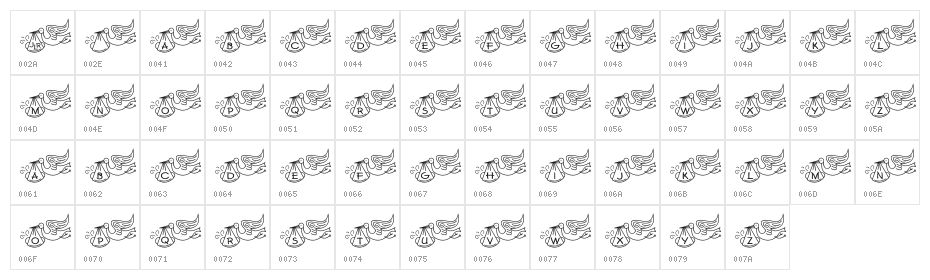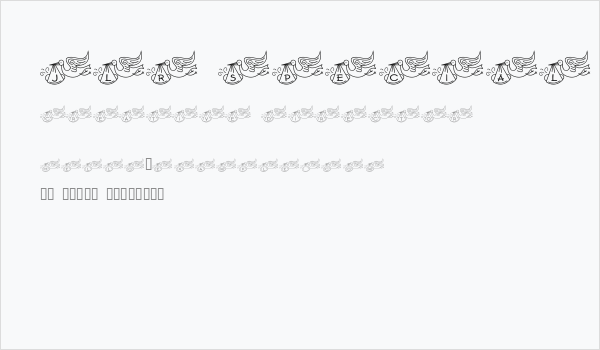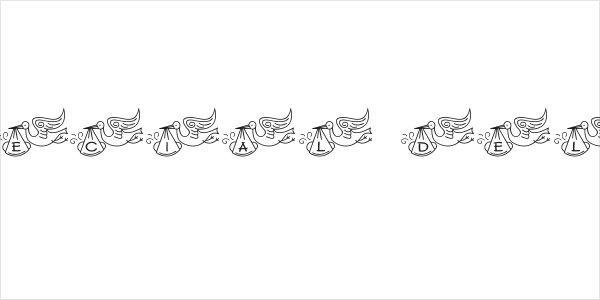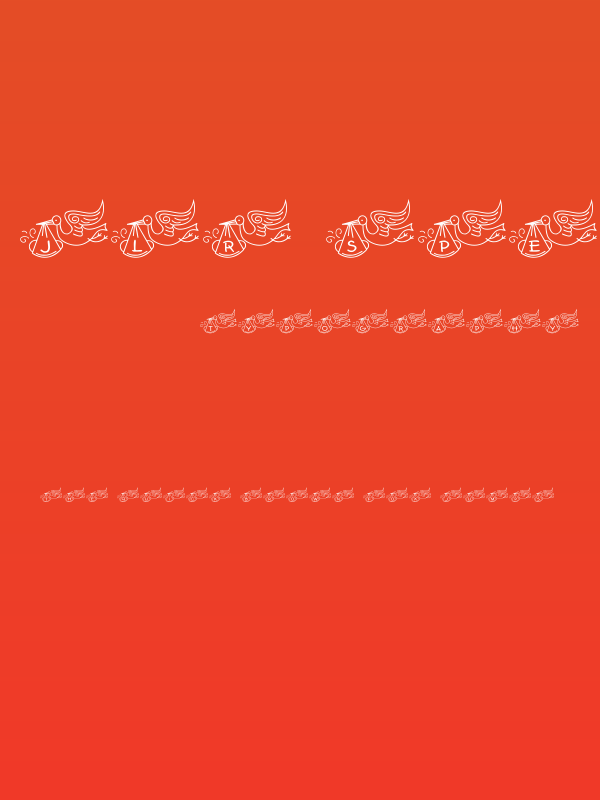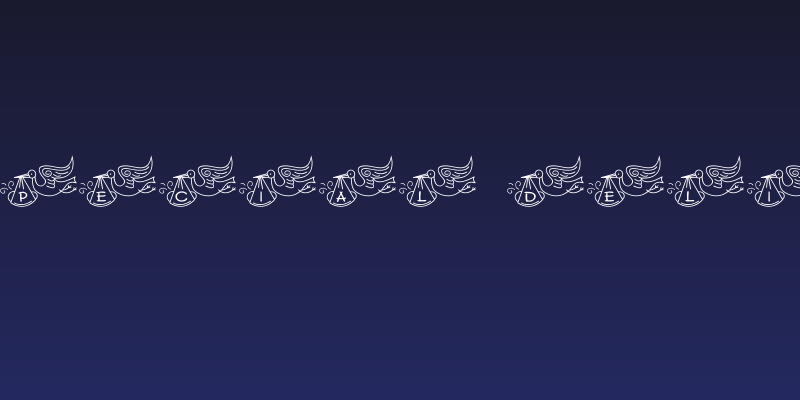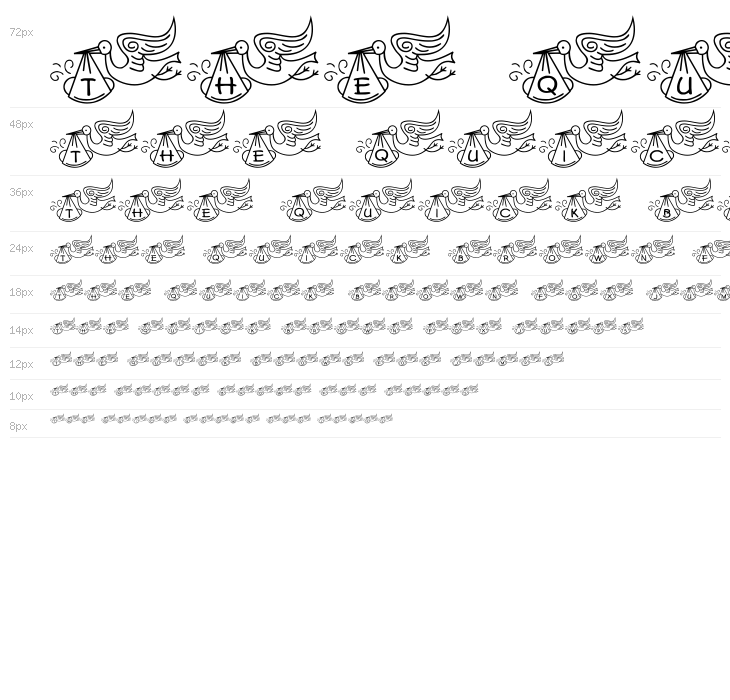
JLR Special Delivery Font
JLR Special Delivery Description
This decorative font features whimsical illustrations of birds carrying letters, creating a playful and unique visual style. Each character is intricately designed, with the bird's wings and tail feathers adding a dynamic flow to the overall appearance. The letters are bold and clear, ensuring readability while maintaining the artistic theme. This font is perfect for projects that require a touch of creativity and charm, such as children's books, greeting cards, or playful branding. The detailed illustrations make it stand out, offering a delightful blend of typography and art.
Use CaseLogos, Headlines, Invitations
Proposed ProjectsIdeal for children's books, greeting cards, playful branding, and creative invitations.